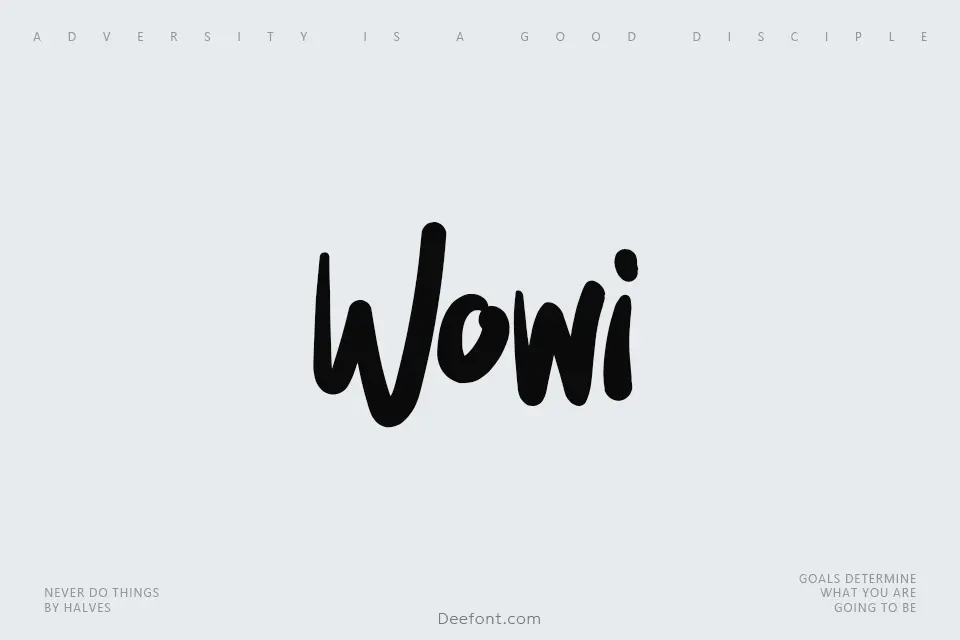
Wowi Typeface Font
Give your designs an authentic handcrafted feel. “Wowi Typeface” is perfectly suited to signature, stationery, logo, typography quotes, magazine or book cover, website header, clothing, branding, packaging design and more.